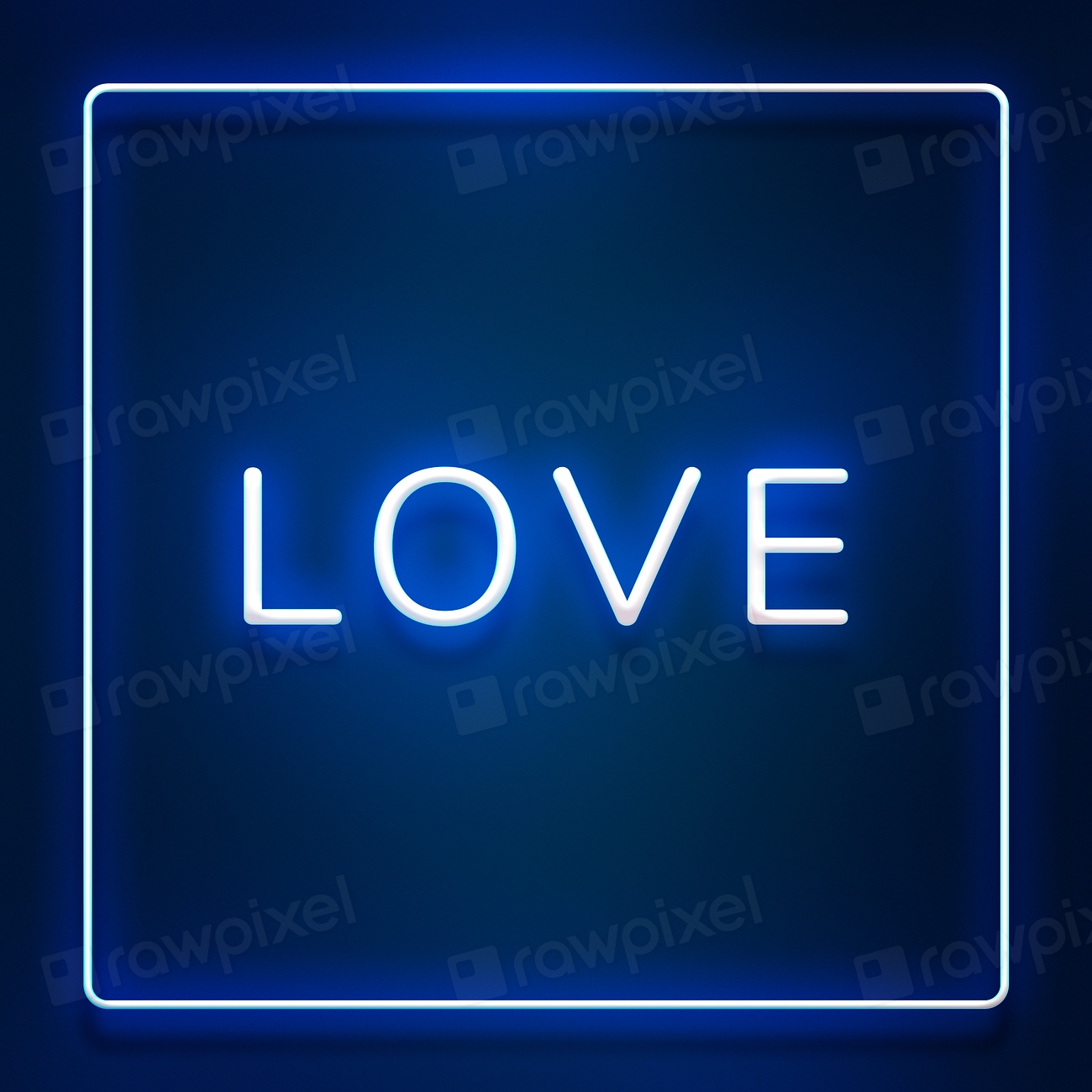
Neon Font Words & Messages Text Effect Set
Simple & minimal modern neon font words, messages, and editable text effect available in bright monotone colored background. High definition designs available in transparent PNGs, PSDs and ready to use jpeg images for printables, social media banners, posts, and posters.